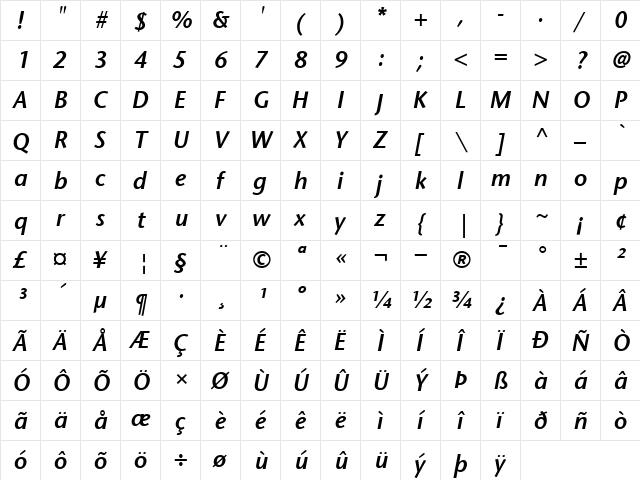
ITCStoneSans-SemiBold Semi BoldItalic Font Preview
Design Context for ITCStoneSans-SemiBold Typeface
ITCStoneSans-SemiBold offers clean, dependable letterforms without strong stylistic allegiance, making it a practical choice for designers who need flexibility. The dynamic lean of this cut emphasises speed and emphasis in any layout. The heavy weight commands attention and anchors typographic hierarchies.
Pro Tip: Try ITCStoneSans-SemiBold for annotation and caption copy alongside an upright companion — the contrast in angle creates a dynamic but ordered typographic system.